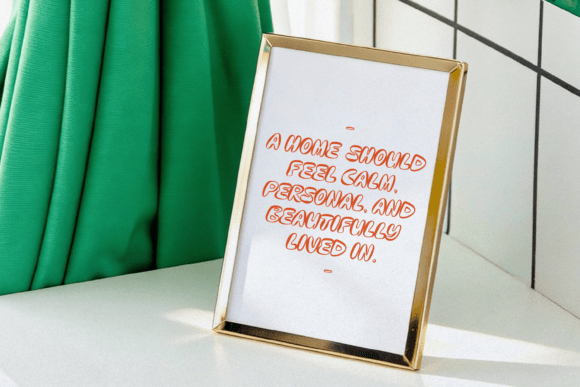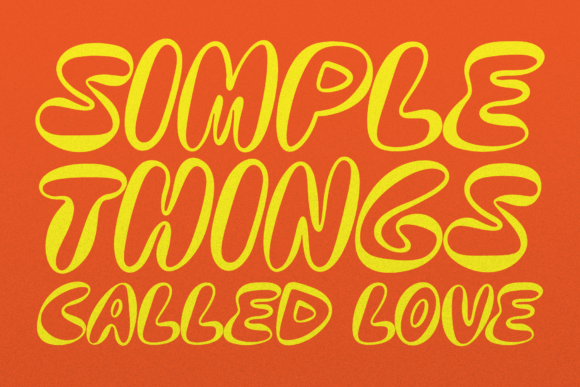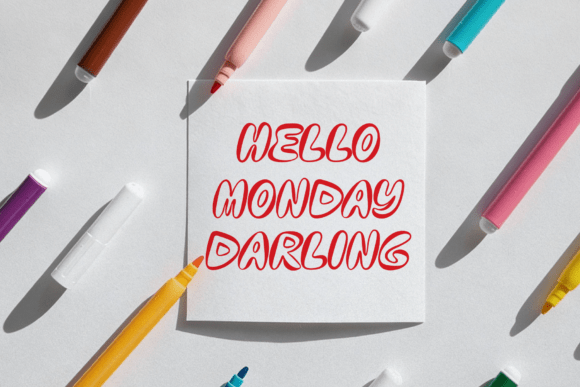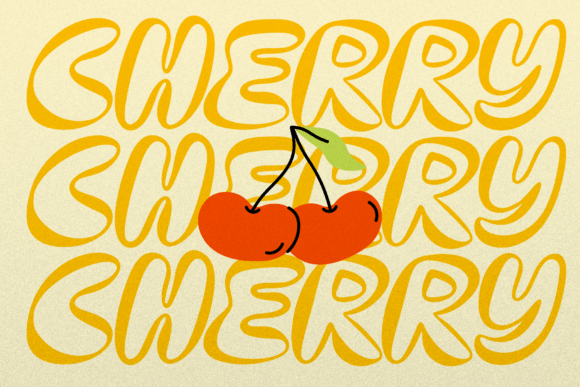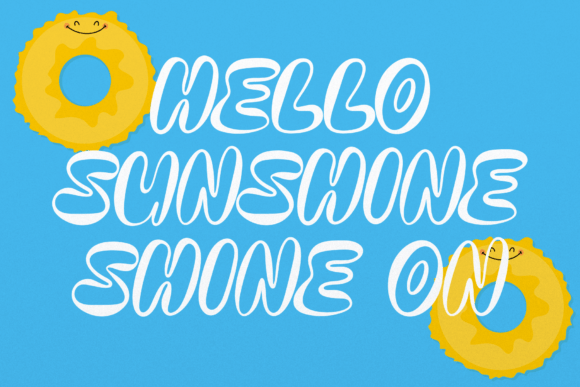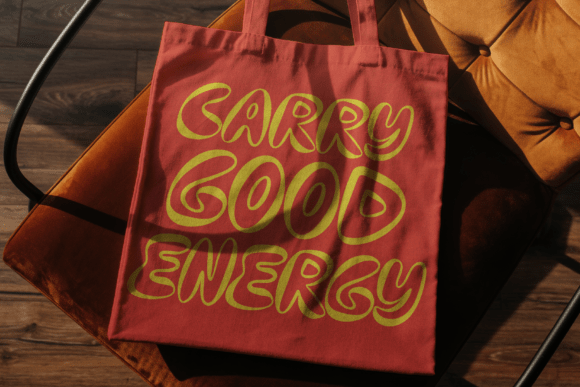
Introduction to Minggo Plays Font
Inject a vibrant burst of pure joy and nostalgic energy into your design canvas with Minggo Plays, an incredibly fun and playful bubbly display font.
Striking a perfect balance between vintage 70s aesthetics and contemporary casual design, this typeface features extra-plump, balloon-like shapes and a lively, expressive sloped rhythm Its thick silhouette makes it exceptionally readable and an absolute dream for layering with thick outlines, playful shadows, or colorful text effects.
Key Features of Minggo Plays Font